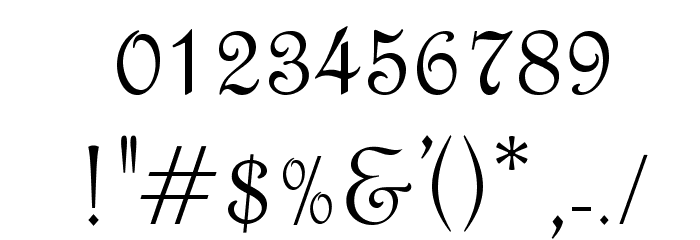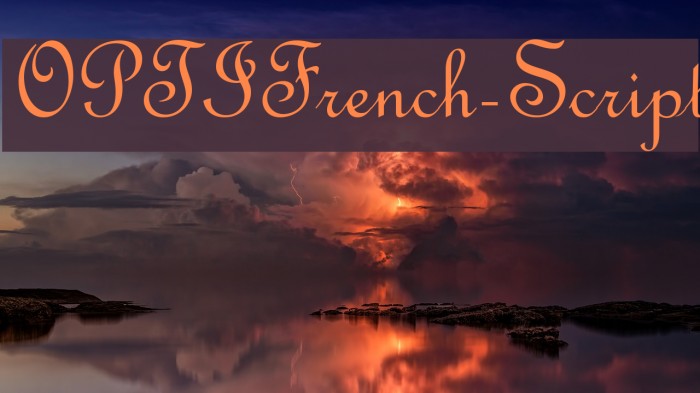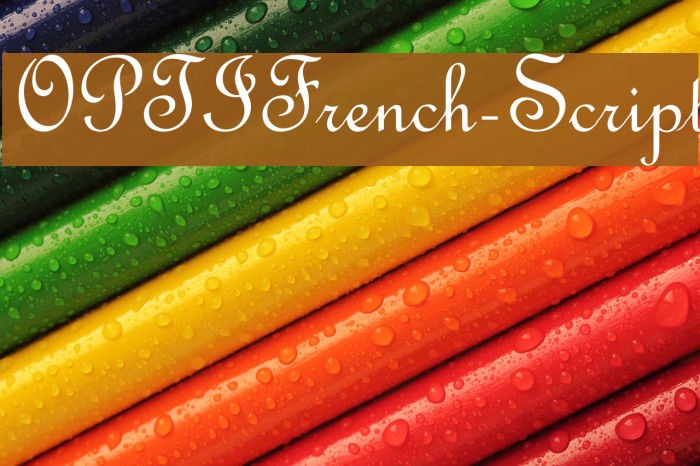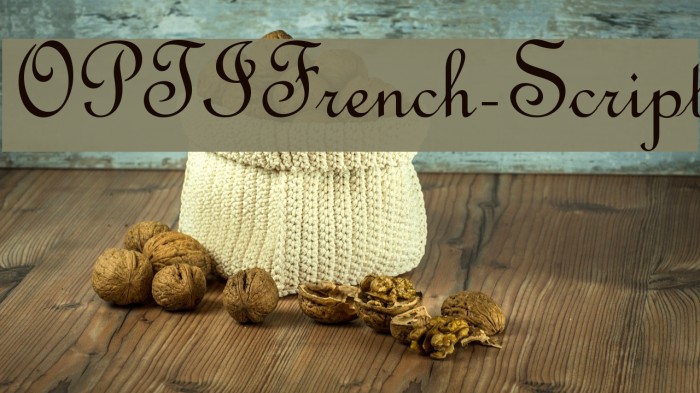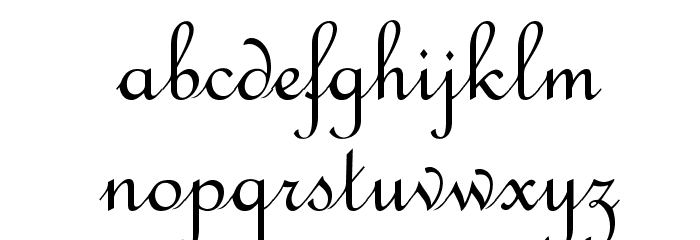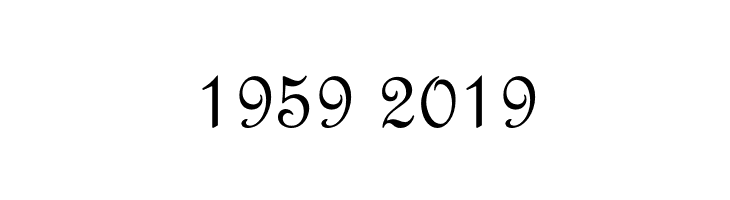
OPTIFrench-Script Font
OPTIFrench-Script Description
This elegant script font features a classic and sophisticated style, characterized by its flowing, cursive letterforms. The uppercase letters are ornate with delicate flourishes, while the lowercase letters maintain a smooth and graceful appearance. The numerals are consistent with the overall script style, providing a cohesive look. Special characters are designed with similar attention to detail, enhancing the font's decorative appeal. This font exudes a sense of refinement and is perfect for projects that require a touch of elegance.
| Overall Style | Classic |
| Use Case | Logos, Invitations, Decorative text |
| Proposed Projects | Ideal for wedding invitations, formal event programs, elegant branding, and luxury product packaging. |